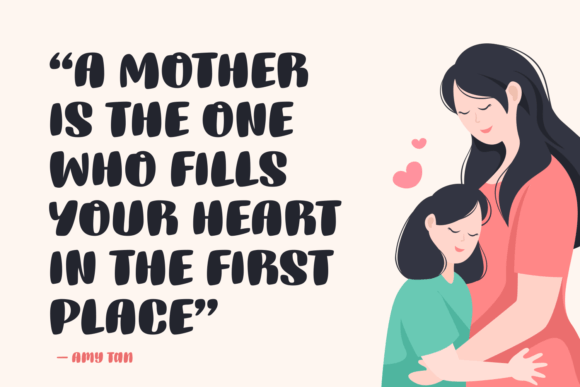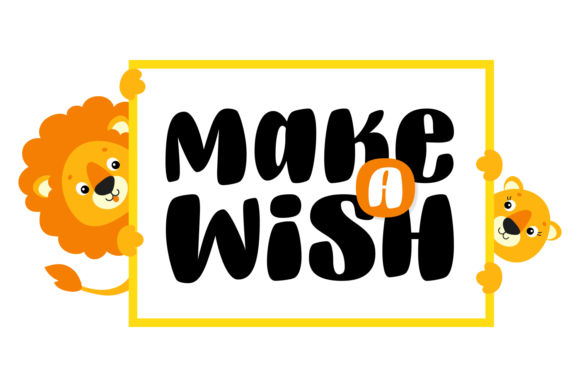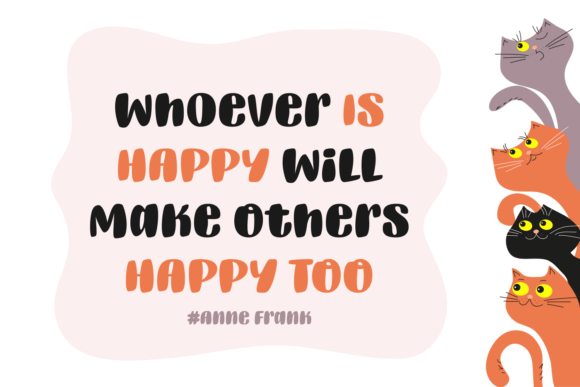
Discover the Delightful “Bring Lucky” Font: Elevate Your Designs with a Touch of Whimsy
I’ll never forget the time I was working on a project for a client who wanted a font that was both bold and playful. I scoured the internet, trying out font after font, but nothing seemed quite right. That was until I stumbled upon the “Bring Lucky” Font. Its unique blend of bold excellence and crisp brush style immediately caught my eye, and I knew I had found the perfect fit. In this article, I’ll share my experience with “Bring Lucky” and explore its features, uses, and potential applications.
A Personal Review: What I Love About “Bring Lucky”
Here’s what I love about “Bring Lucky”:
- ✨ Unique and eye-catching design: The bold, brush-style letters are sure to turn heads and add a touch of personality to any design.
- ✅ Highly versatile: From craft projects to digital designs, “Bring Lucky” can be used in a wide range of applications.
- 💕 Emotional connection: The font’s warm and genial vibe makes it perfect for creating heartwarming greeting cards, inspirational quotes, and more.
- 🎨 Design flexibility: With its adaptable charm and uniqueness, “Bring Lucky” can be used to create a wide range of designs, from playful to sophisticated.
While “Bring Lucky” is an excellent font, there are a few things to keep in mind:
- 🤔 Legibility at small sizes: As with many script fonts, “Bring Lucky” may become less legible at very small sizes. It’s best used at larger sizes or for headlines.
- ⚠️ Overuse: While “Bring Lucky” is a beautiful font, using it excessively can make your design look cluttered and overwhelming.
The Story Behind “Bring Lucky”
The story behind “Bring Lucky” is one of creativity and inspiration. According to the designer, the font was created to capture the essence of good fortune and positivity. The designer’s goal was to create a font that would bring a smile to people’s faces and inspire them to create something beautiful.
| Author | Situjuh |
| What is the best use for “Bring Lucky”? | “Bring Lucky” is perfect for designs that require a touch of whimsy and personality, such as greeting cards, inspirational quotes, and creative projects. |
| Is “Bring Lucky” suitable for body text? | No, “Bring Lucky” is best used for headlines and titles. Its unique design and bold style make it less suitable for body text. |
In conclusion, “Bring Lucky” is a delightful font that’s sure to bring a touch of whimsy and personality to your designs. With its unique blend of bold excellence and crisp brush style, it’s perfect for a wide range of applications, from craft projects to digital designs. So why not give “Bring Lucky” a try and see how it can elevate your designs?